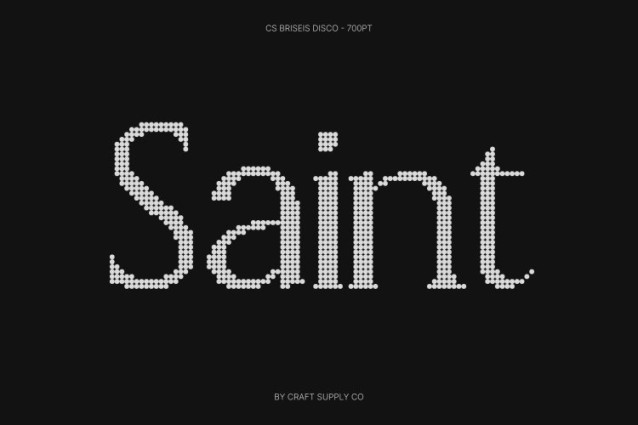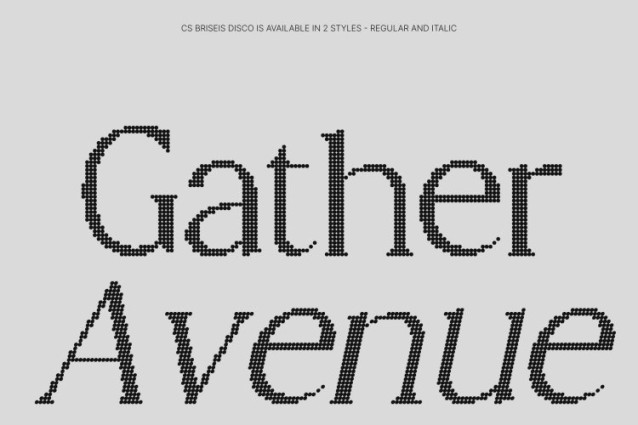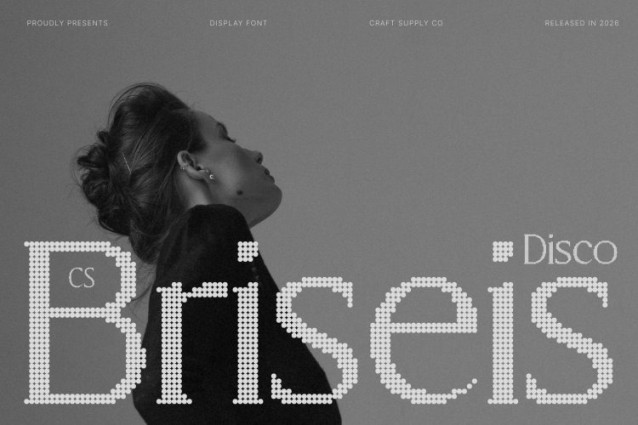
CS Briseis Disco Font
CS Briseis Disco Font This is a luxury serif font defined by refined curves and elegant structure, elevated with a subtle disco-inspired glow. Designed with precision and grace, it embodies timeless beauty while embracing modern, after-dark sophistication. Each character flows with balance and confidence, creating a visual presence that feels polished, radiant, and unmistakably premium.
Refined Curves with Luminous Rhythm
Smooth serifs and clean lines give this font its graceful rhythm, while delicate details introduce a sense of movement and celebration. The result is typography that feels calm yet alive luxury lettering that catches the light, like elegance brought to life on a glamorous evening stage.
Perfect for Luxury Branding, Editorials, and Premium Packaging
From fashion editorials and high-end branding to beauty packaging and exclusive campaigns, this font enhances every composition with sophistication and allure. Its elegant proportions pair beautifully with modern minimalism while adding a festive, glamorous undertone that elevates visual storytelling.
Timeless Design with Modern Nightlife Nuance
Blending classic serif charm with contemporary refinement, this font is crafted for designers who value intelligence, beauty, and style with a touch of celebration. It’s a typeface that feels eternally elegant, yet confidently modern, bringing luxury typography into a radiant, disco-inspired future.